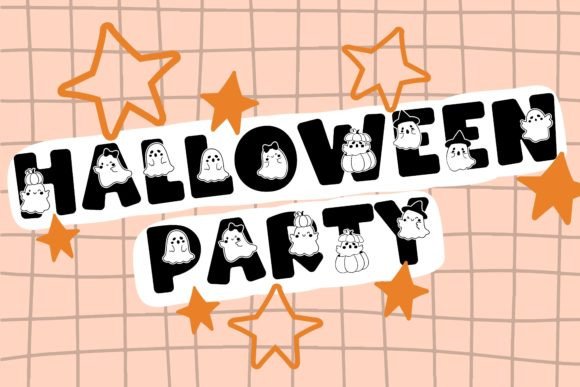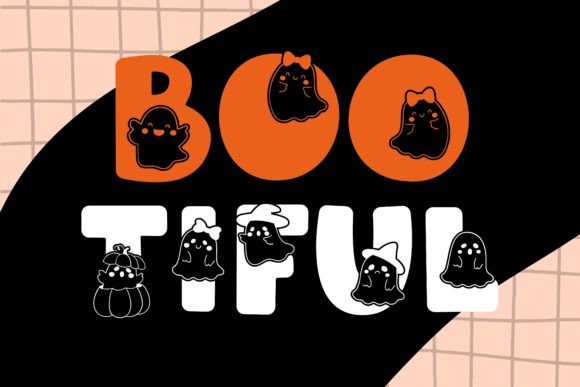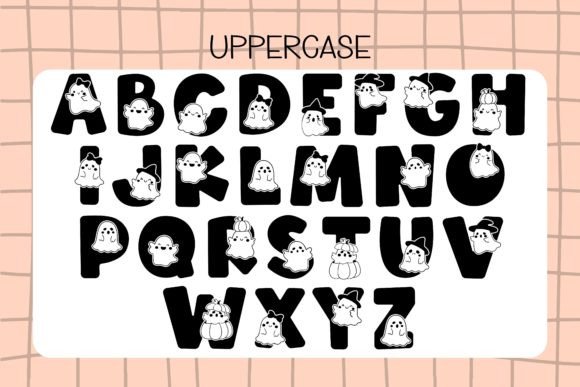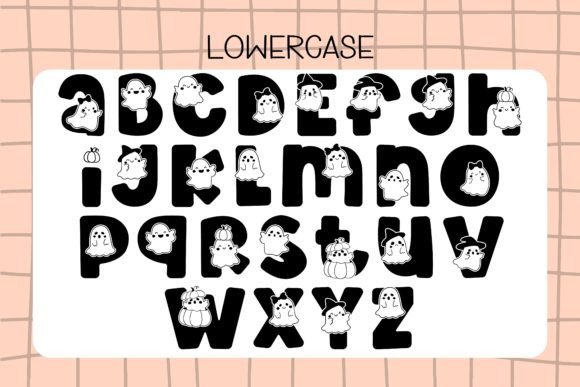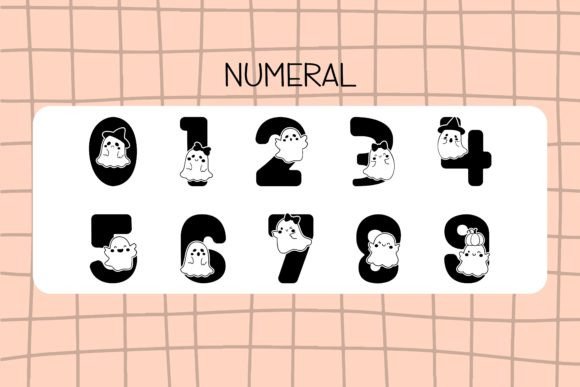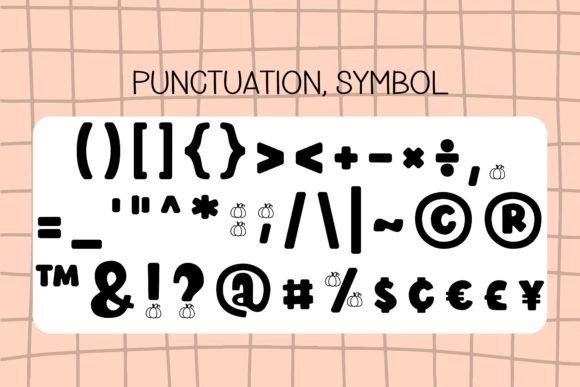
Unleash the Spooky Cuteness with Ghost Font: Elevate Your Designs and Crafts
Are you looking for a font that adds a touch of spookiness and adorability to your projects? Look no further than the Ghost Font! Designed in a spooky and adorable decorative font style, Ghost Font is perfect for a wide range of creative projects, from back to school and Halloween party decorations to children’s crafts and more.
What is Ghost Font?
Ghost Font is a unique and playful font that combines the spookiness of ghosts with a cute and endearing twist. Its decorative style makes it stand out from traditional fonts, adding a fun and whimsical touch to any project. Whether you’re a designer, crafter, or DIY enthusiast, Ghost Font is sure to inspire your creativity and take your projects to the next level.
Perfect for Child-Related Projects
Ghost Font is particularly well-suited for child-related projects, such as:
- Back to school decorations and crafts
- Halloween party decorations and invitations
- Children’s book illustrations and storybooks
- Kids’ party themes and activities
Its playful and non-threatening design makes it an excellent choice for projects aimed at kids, adding a touch of excitement and fun to your creations.
Adding a Bright and Fun Touch to Your Projects
Ghost Font is not just limited to spooky or child-related projects. Its versatility makes it suitable for any topic that needs a bright and fun touch. Use it to:
- Create eye-catching posters and flyers
- Design engaging social media graphics and posts
- Add a playful twist to your website or blog
- Develop unique and captivating branding materials
With Ghost Font, you can add a dash of personality to your projects and make them stand out from the crowd.
Why Choose Ghost Font?
So, why should you choose Ghost Font for your next project? Here are just a few reasons:
- Unique and playful design: Ghost Font offers a one-of-a-kind design that will set your projects apart from others.
- Versatility: Use it for a wide range of projects, from child-related crafts to adult-oriented designs.
- Ease of use: Ghost Font is easy to read and works well in various contexts, from digital to print.
- Fun and engaging: Add a touch of whimsy and excitement to your projects with Ghost Font’s playful design.
Ghost Font is a unique and versatile font that adds a touch of spooky cuteness to any project. With its playful design and wide range of applications, it’s perfect for designers, crafters, and DIY enthusiasts looking to elevate their creative projects. Try Ghost Font today and discover how it can make your projects stand out!